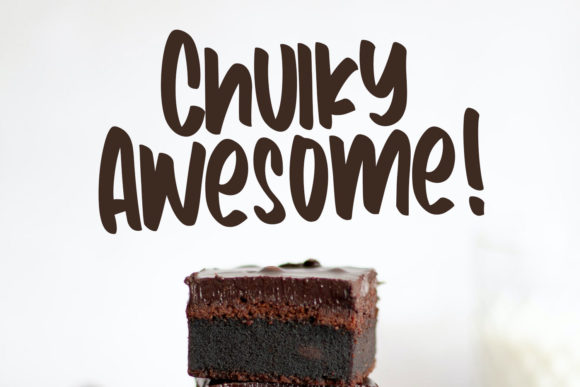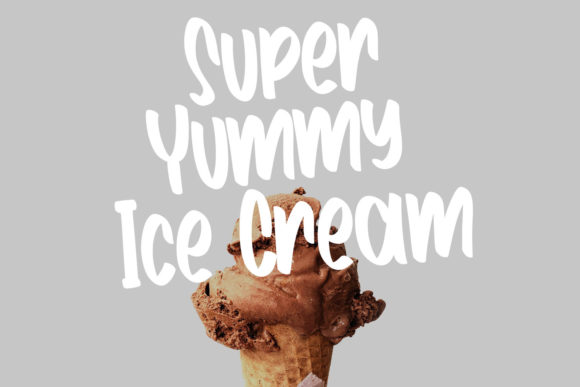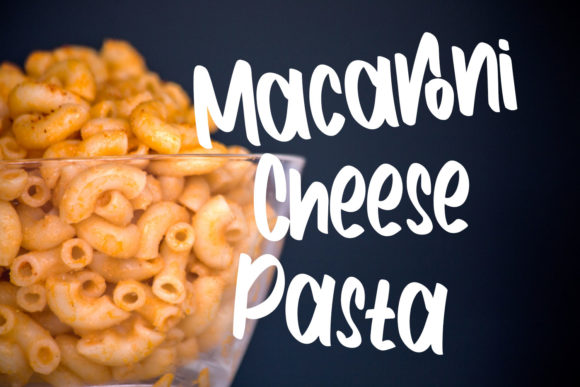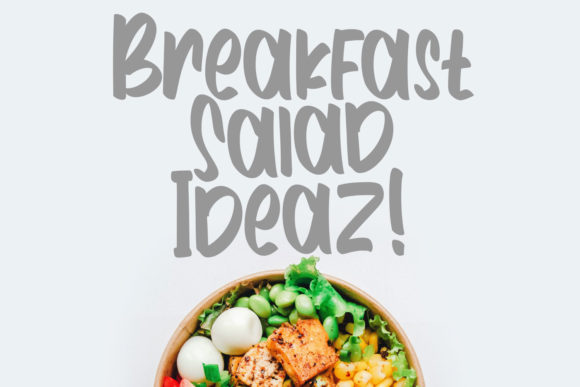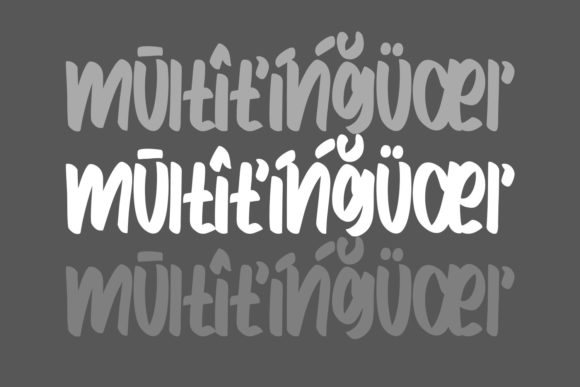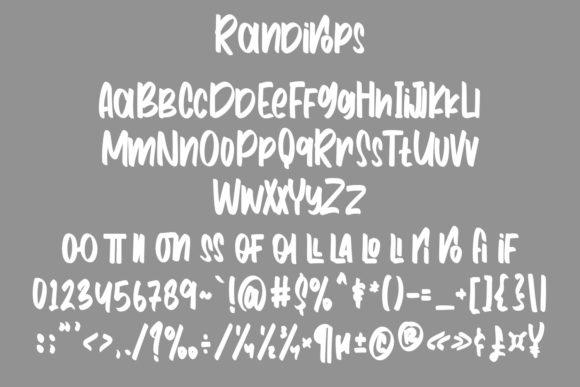
Introduction to Randirops Font
Have you ever stared at a blank canvas, struggling to find the perfect font to bring your creative project to life? It’s that moment of frustration when you know exactly what you want, but can’t quite put your finger on the right design resource. For designers, finding the perfect font can make all the difference between a mediocre and a high-quality design.
Enter the Randirops Font – a quirky, yet incredibly versatile display font that’s sure to elevate your next creative project. With its unique blend of elegance and whimsy, this font is perfect for designers looking to add a touch of personality to their designs. And the best part? You can download it for free, making it an invaluable design resource for any creative.
Whether you’re working on a logo, a social media graphic, or a marketing brochure, the Randirops Font is sure to add a touch of sophistication and style. Plus, with a transparent background, you can easily layer it over your designs without any fuss. So why wait? Get creative with the Randirops Font today and take your designs to the next level!
- Unique, hand-drawn style with intricate details, perfect for adding a personal touch to designs.
- Perfect for use in various design projects, including logos, posters, and digital graphics.
Honest Review: Randirops Font
I recently had the chance to experiment with the Randirops Font, and I must say it’s a fantastic addition to any designer’s arsenal. This high-quality font is perfect for a creative project that requires a touch of elegance and sophistication.
One of the standout features of the Randirops Font is its versatility. It’s suitable for both digital and print designs, making it an excellent choice for a wide range of applications. Plus, it’s a free download, which is always a bonus!
Here are some of the things that work well with the Randirops Font:
- ✨ High-quality design that looks professional and polished
- ✨ Versatile and suitable for various design projects
- ✨ Transparent background, making it easy to work with
- ⚠️ Limited character set, which may not be ideal for longer texts
- ⚠️ May not be as effective in very small sizes
Overall, I’m thoroughly impressed with the Randirops Font. It’s a solid design resource that can elevate your creative projects to the next level. Just be mindful of its limitations, and you’ll be all set to create stunning designs with this fantastic font.
Common Use Cases for Randirops Font
Randirops Font is commonly used in graphic design, logo creation, and presentation design. Its transparent background feature makes it ideal for graphics and logos, while its high-quality design makes it perfect for professional presentations and documents.